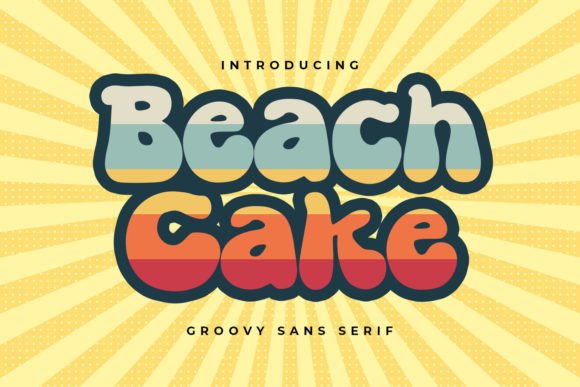
Introducing Beach Cake Font, the perfect choice for vintage design enthusiasts! Created by the talented Abodaniel, this retro sans serif font will instantly transport you to a world of groovy and cute aesthetics. With its unique touch, Beach Cake Font is more than just a typeface – it's a statement.
Whether you're looking to elevate your branding, add a touch of personality to your quotes, or create eye-catching logos, Beach Cake Font is here to make your designs stand out from the crowd. Its versatility knows no bounds, making it ideal for a wide range of projects.
Imagine the impact of Beach Cake Font on your t-shirt designs. Its funky and nostalgic vibe will grab attention and turn heads wherever you go. Let your creativity run wild as you experiment with different color combinations and layout options, knowing that this font will effortlessly complement your vision.
Want to make a bold statement with your tote bag designs? Look no further than Beach Cake Font. Its charming and retro style will make your bags irresistible, drawing customers in and leaving a lasting impression. Stand out from the competition and let your products speak for themselves.
Cards and banners are meant to convey emotions and capture attention. With Beach Cake Font, you can effortlessly achieve both. Add a touch of nostalgia to your greeting cards, invitations, and event announcements, ensuring that recipients will feel an instant connection to your message. Let your banners shine with a font that exudes personality and sets the tone for your event.
In the age of social media, it's crucial to grab attention with every post. Beach Cake Font will be your secret weapon in creating captivating social media content. Whether you're sharing inspirational quotes, promoting your brand, or simply expressing yourself, this font will add that extra oomph to your visuals, making them impossible to scroll past.
Don't miss out on the opportunity to bring your projects to life with Beach Cake Font. Its groovy sans serif style, combined with its retro charm, will captivate your audience and leave a lasting impression. Step into the world of vintage design and let your creativity soar.